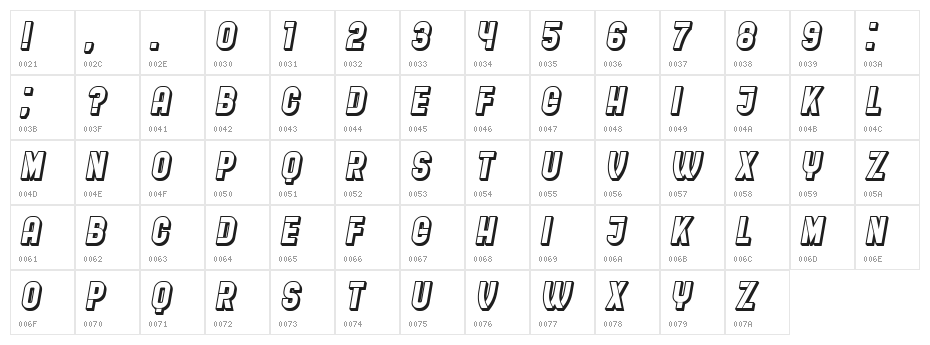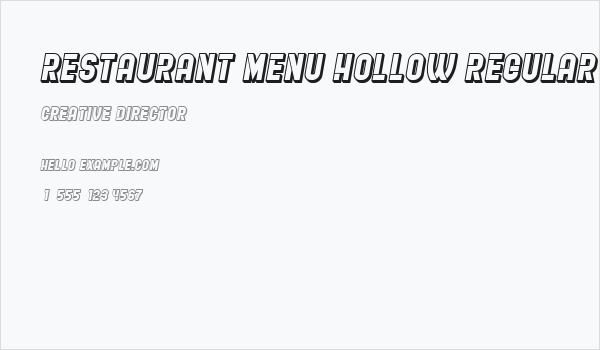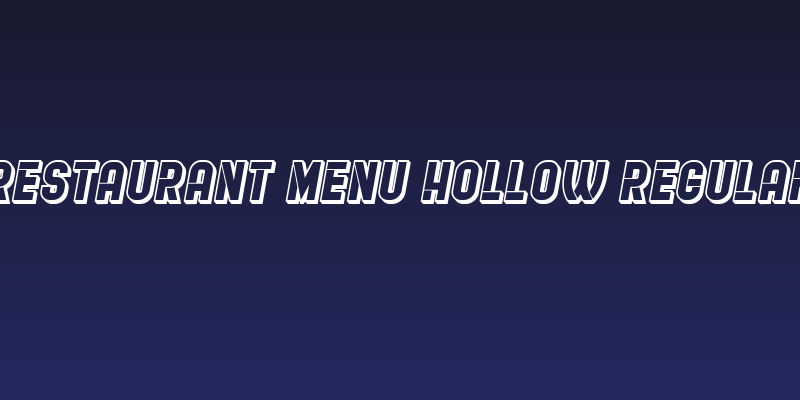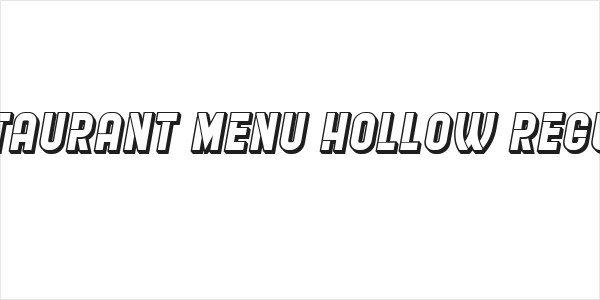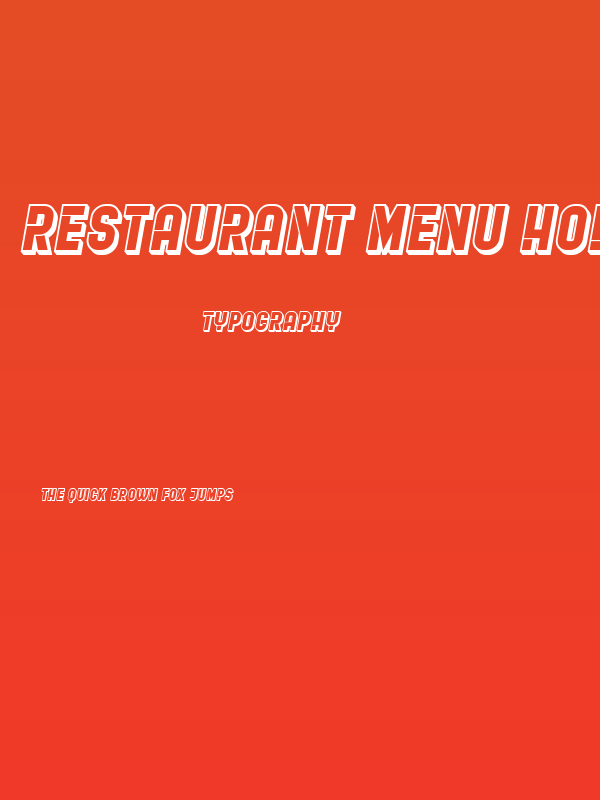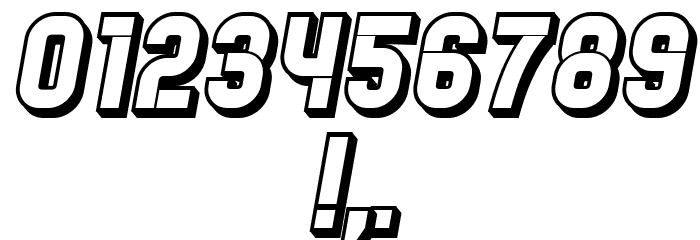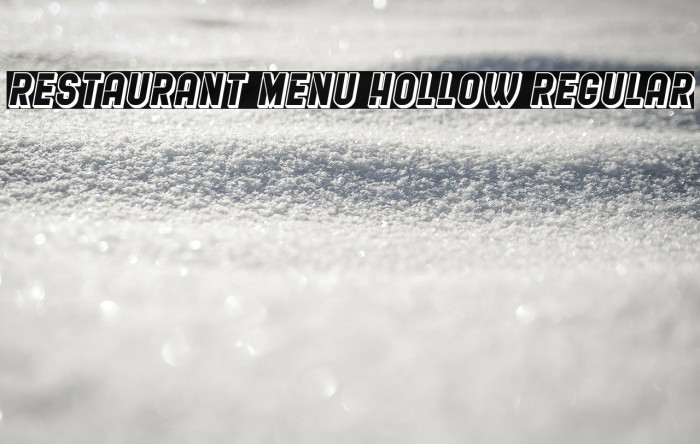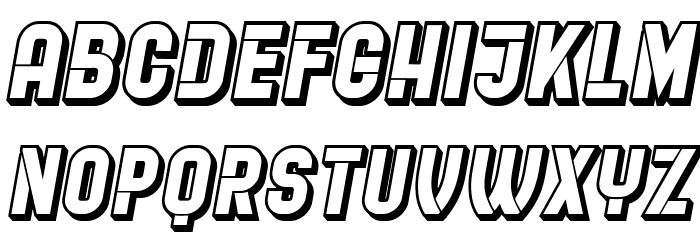
Restaurant Menu Hollow Regular Font
Restaurant Menu Hollow Regular Description
This font features a bold, hollow design with a strong, impactful presence. The uppercase letters are characterized by thick outlines and a three-dimensional effect, giving them a standout appearance. The numbers and special characters follow the same style, maintaining consistency across the character set. The font's hollow nature allows for creative use of background colors or textures to show through, making it ideal for eye-catching designs. Its boldness and unique style make it suitable for projects that require a strong visual impact.
| Proposed Projects | Ideal for restaurant menus, posters, signage, and any design requiring a bold statement. |